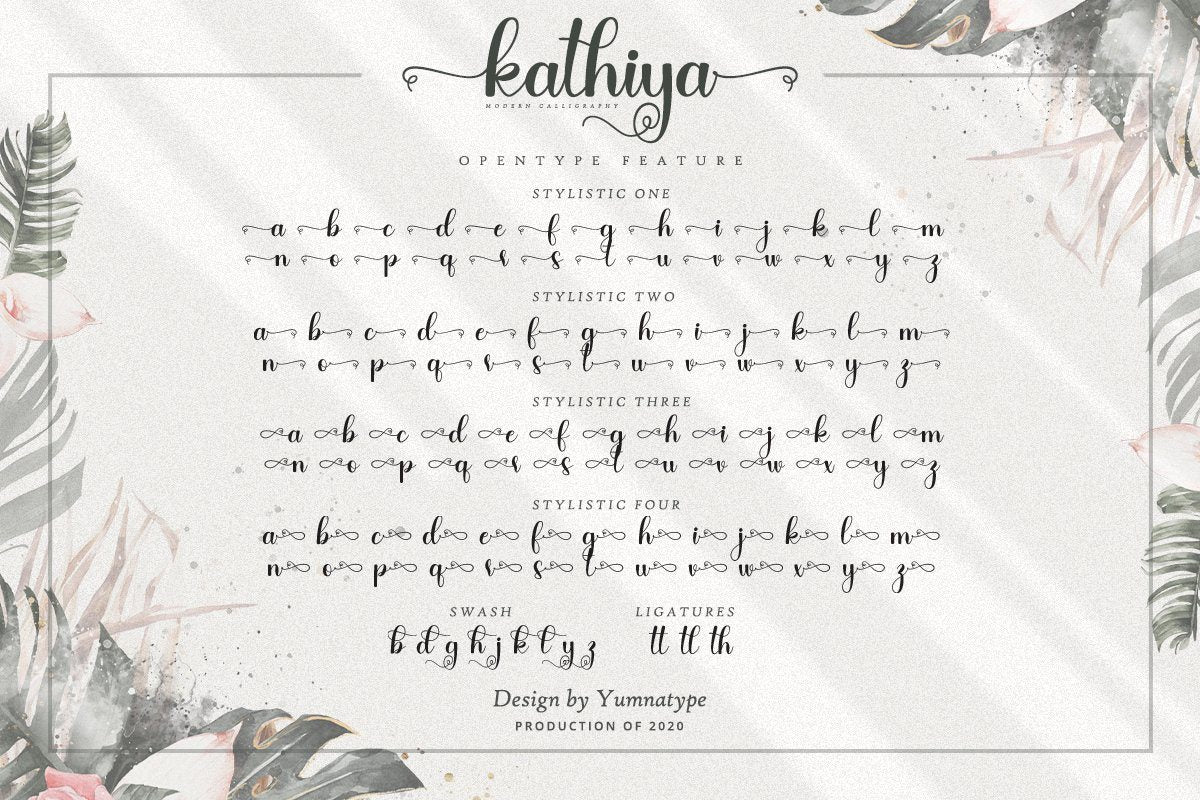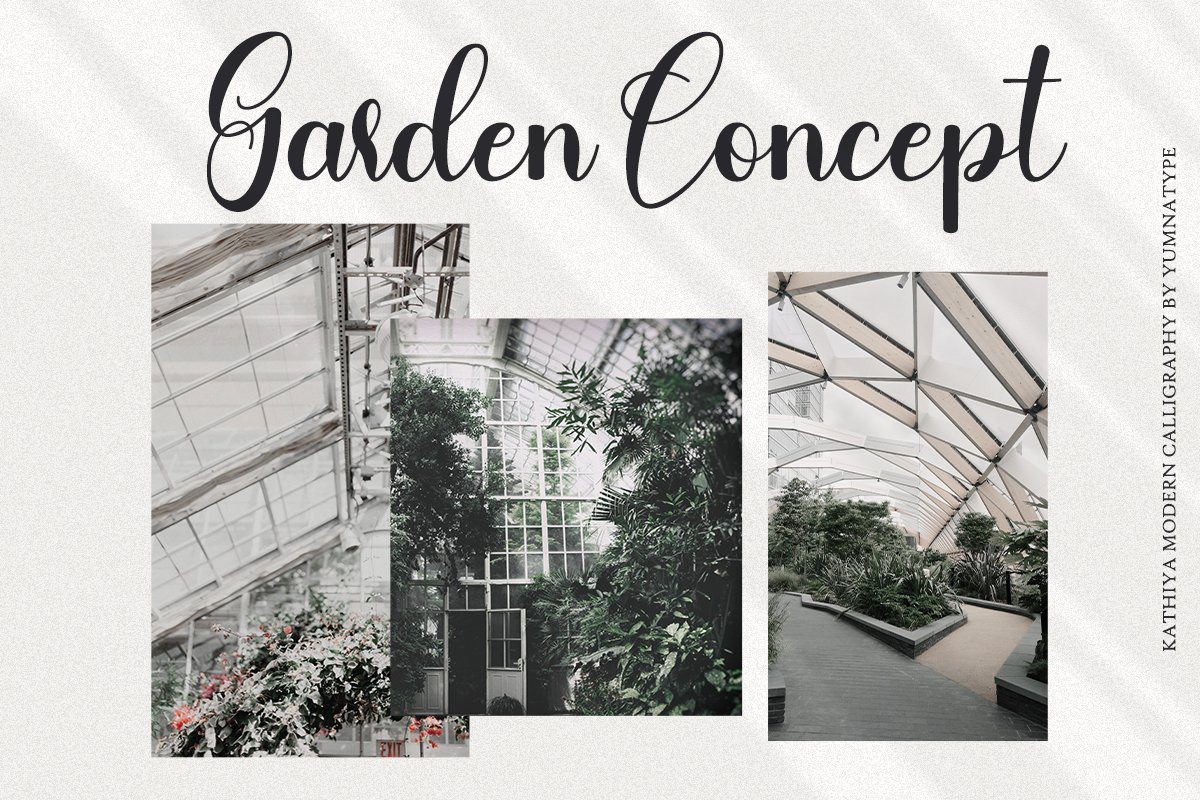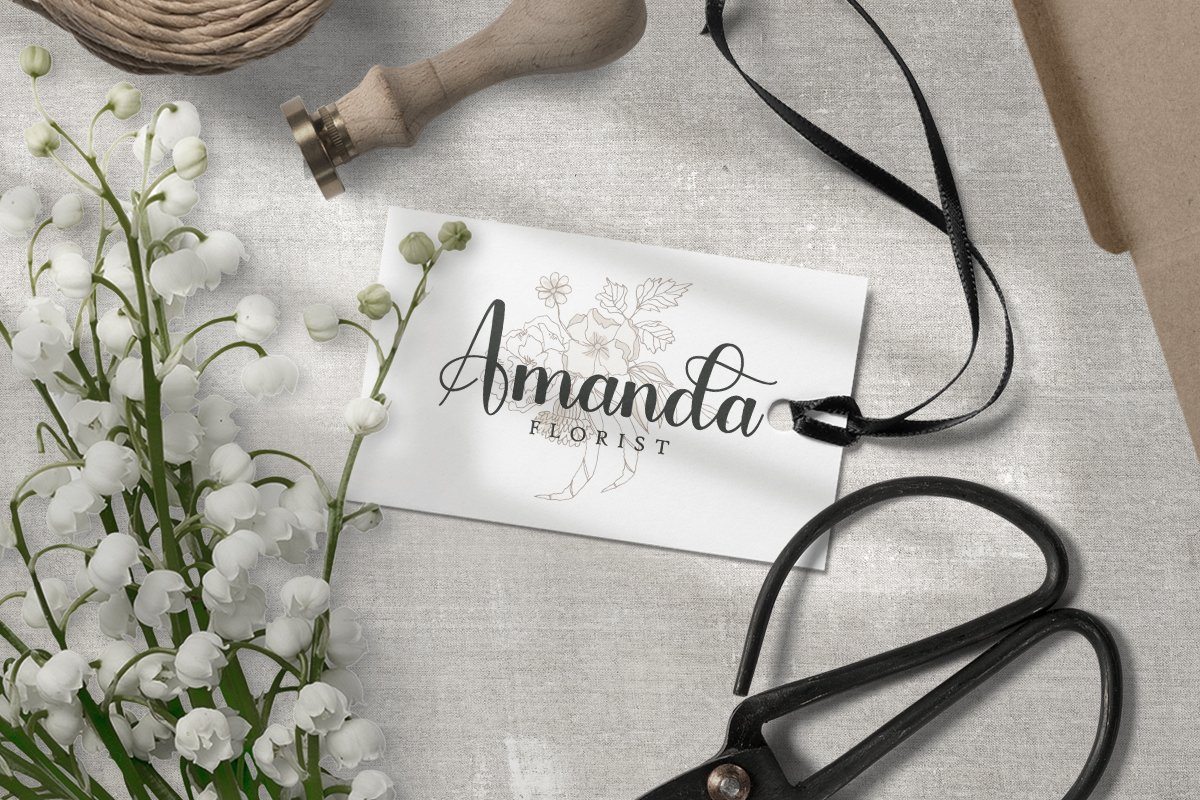
About Kathiya Script
Say hello to Kathiya Script. Kathiya is beautiful and modern script. It brings a beautiful and modern typeface that best used for weddings, branding, logotype, and quotes.: Includes : – Kathiya Features : Ligatures Beautiful Alternates + Swashes PUA Encoded Multilingual Support Numerals and Punctuation Beginning Swash and Ending Swashes (a-z) Easy Uses Thank You for visiting our shop Have a nice day! Yumna Type-